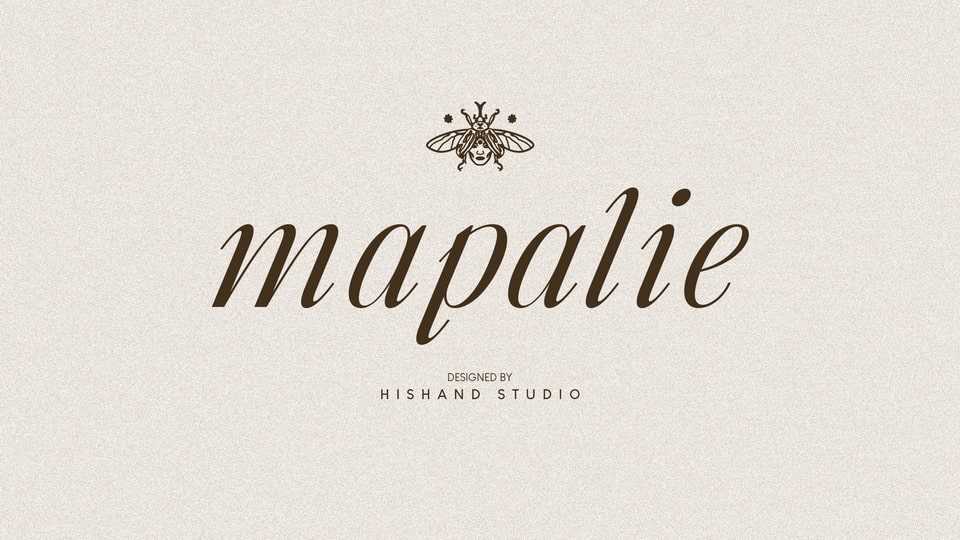
Download Mapalie font, an italic serif typeface that brings a touch of elegance, class, and luxury to your designs. Its smooth curves and stylish details make every letter feel graceful.